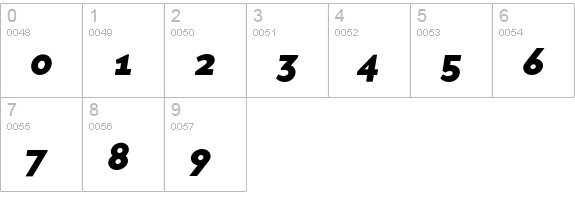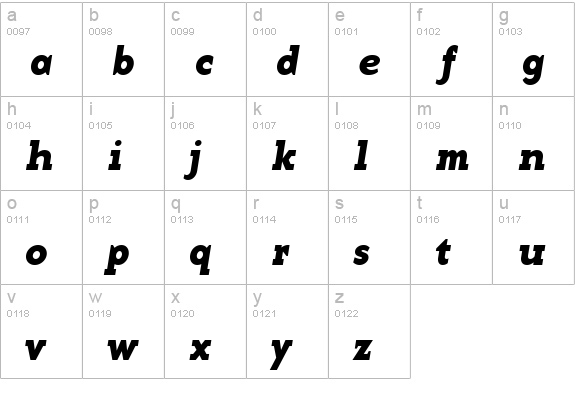
BaseTwelveSerifBI Font Details
BaseTwelveSerifBI font is a stylish and elegant typeface that exudes sophistication and professionalism. The serif design adds a touch of classic charm to any text, making it perfect for a wide range of projects including branding, editorial design, and more. The bold italic style of this font commands attention and adds a sense of authority to your message. Best of all, BaseTwelveSerifBI font is available for free download at FontsMarket.com. This means you can enhance your designs with this beautiful typeface without having to spend a penny. Don't miss out on the opportunity to elevate your projects with the timeless elegance of BaseTwelveSerifBI font.